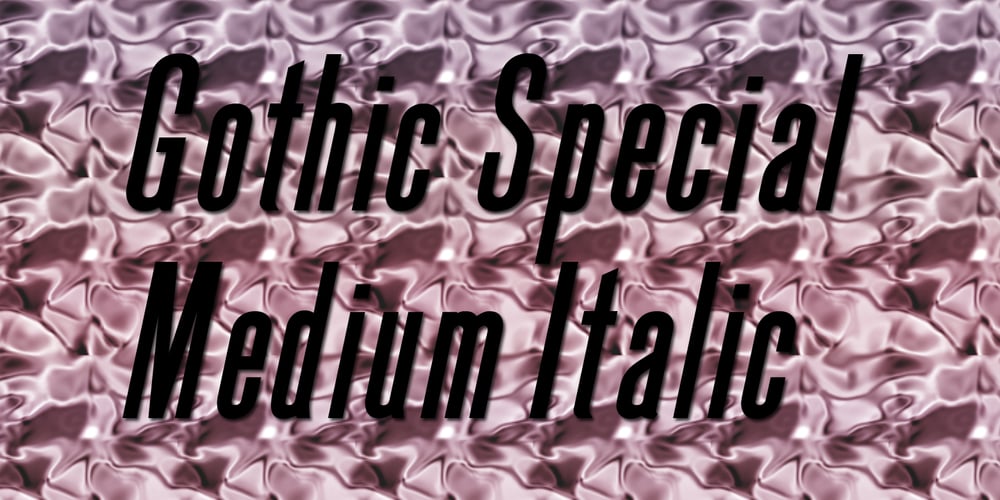
Gothic Special Medium Italic Font Family was designed by Jordan Davies and published by Wooden Type Fonts. Gothic Special Medium Italic contains 1 styles and family package options. A revival of one of the popular wooden type fonts of the 19th century, suitable for text or display, short descenders, tall ascenders, the narrow, italic version, completing the family of 6 fonts in total, sans serif.